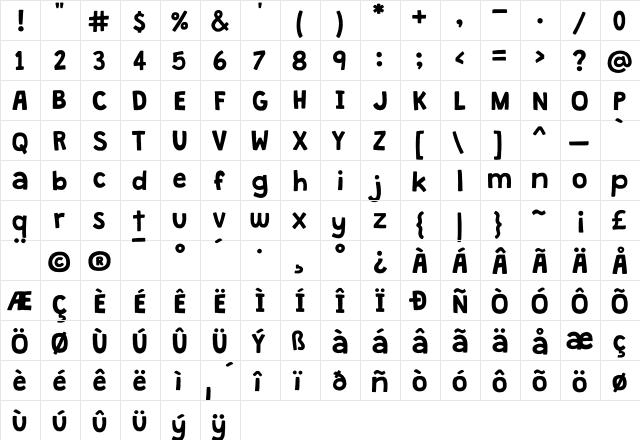
Granstander Clean Regular
| Foundry | Tyler Finck |
| Designer | Tyler Finck |
Design Context for Granstander Clean Typeface
Granstander Clean is a composed and adaptable typeface that performs quietly and consistently across a wide range of design contexts.